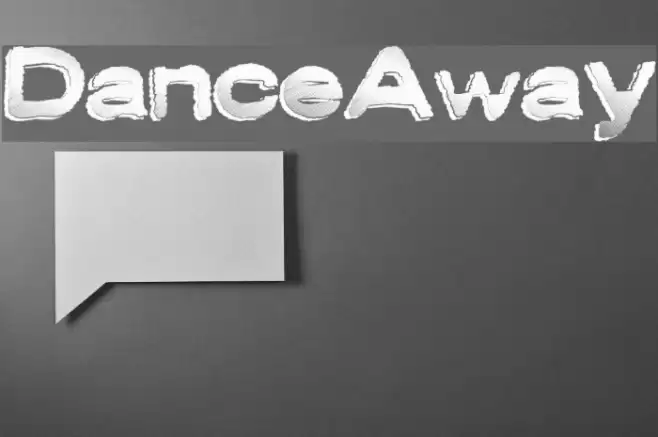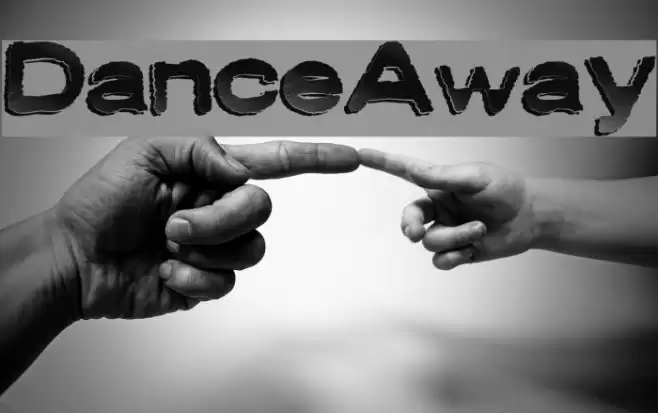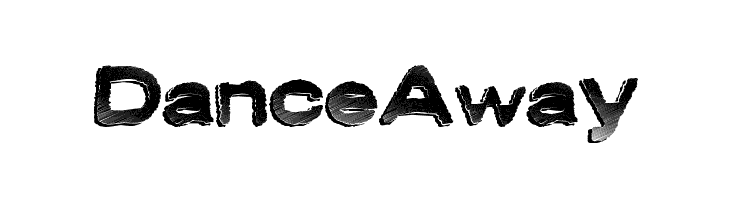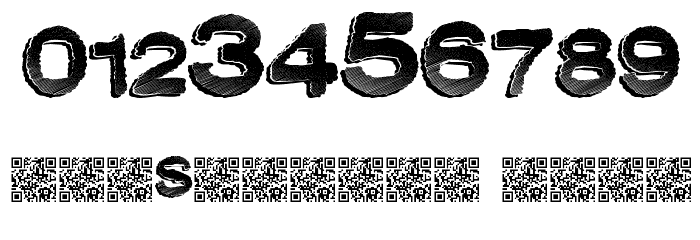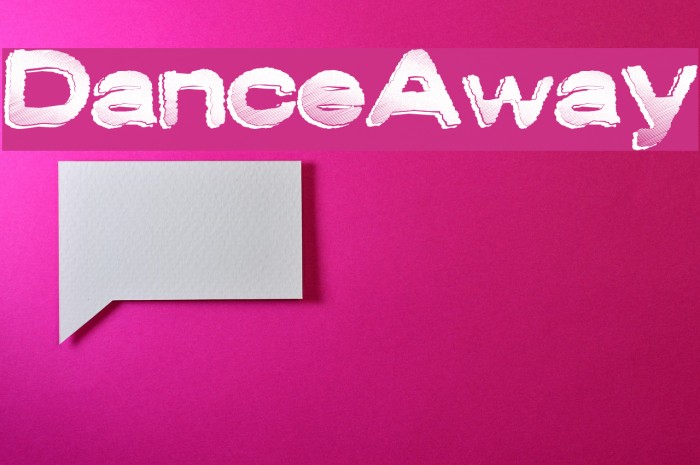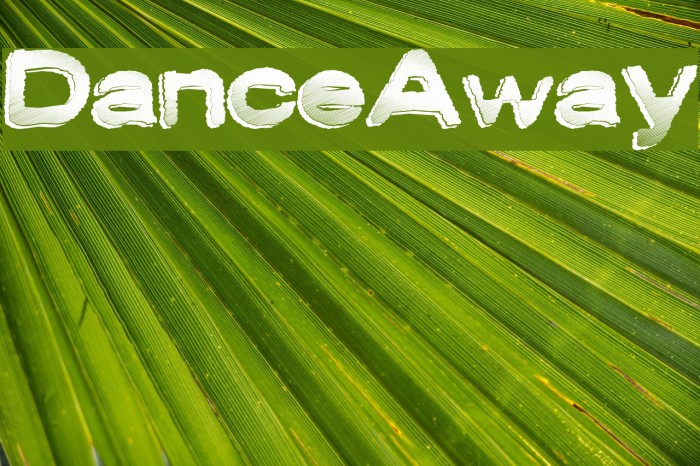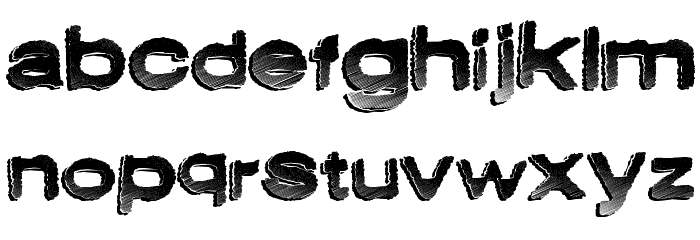
DanceAway Font
DanceAway Description
This font features a bold and dynamic style with a textured, hand-drawn appearance. The characters are robust and slightly condensed, with a unique sketch-like texture that adds depth and personality. The uppercase and lowercase letters maintain a consistent style, with rounded edges and a playful, artistic flair. Numbers and special characters follow the same design, ensuring a cohesive look across all text. The font's distinctiveness makes it stand out, ideal for creative projects that require a touch of individuality and flair.
A bold, textured font with a hand-drawn, sketch-like appearance from Distorted Eroded fonts.
- Proposed Projects: Ideal for posters, album covers, artistic branding, and creative social media graphics.
- Overall Style: Artistic, Playful